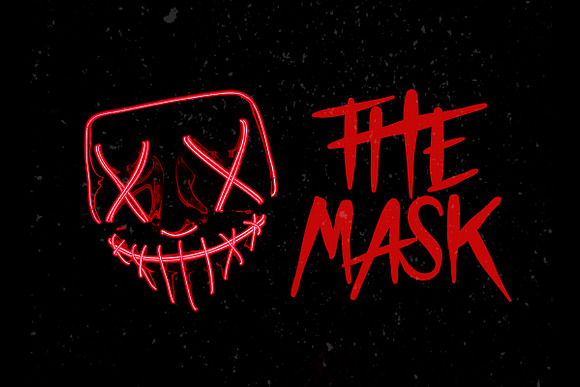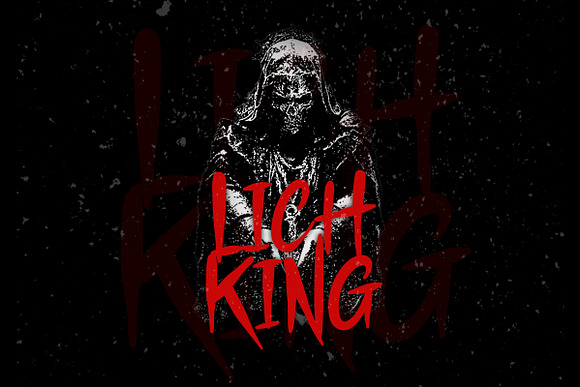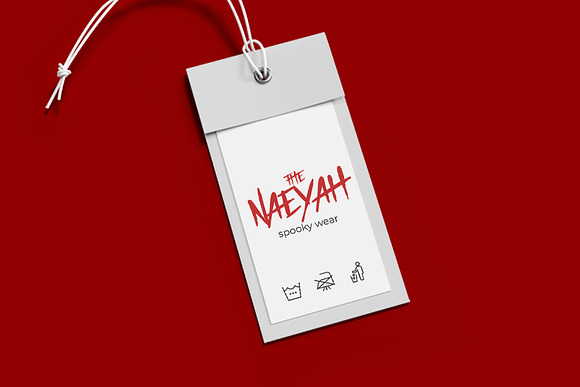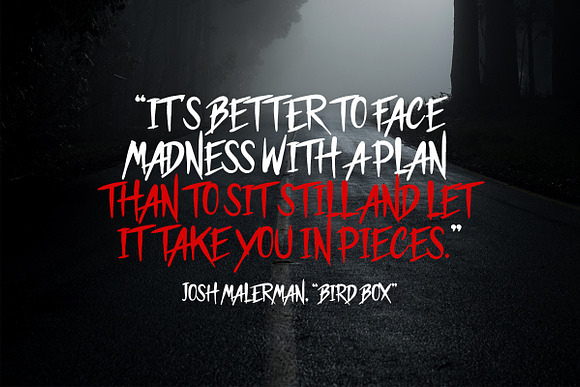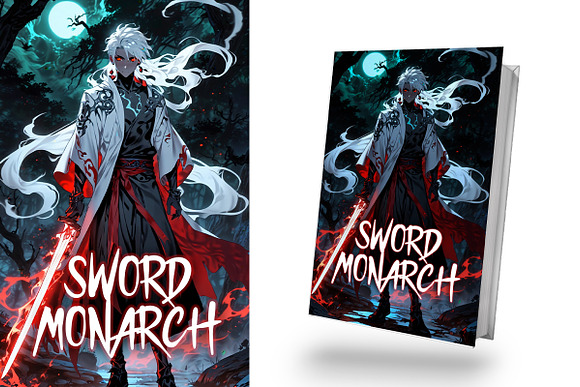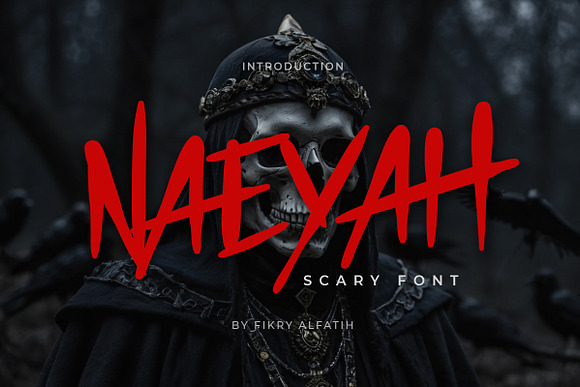
Naeyah - Scary Font
Naeyah is a horror-style display font. Horror thriller movies inspire it, and this font is designed for Horror, Thriller, and Scary theme projects. Naeyah would be perfect for logos, quotes, apparel, comics, cover books, cards, posters, or anything that requires a horror or scary look!